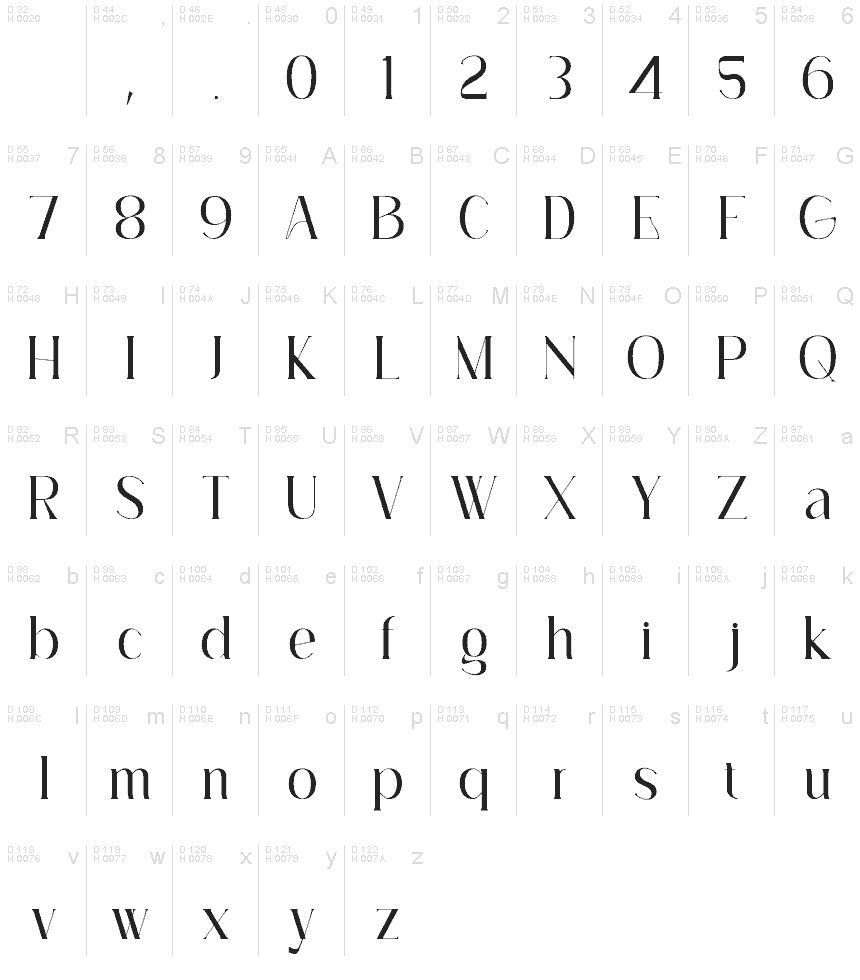
Malden Regular
Malden font by Muksal Creative is a sans serif condensed font, yet it carries all the qualities of an elegant serif. This youthful elegance is achieved through clever design choices that the human eye unconsciously deciphers to form the final magic effect. The letters are consistent in their look, width, and tilt which entails smooth reading and fun use.
This free font shows great potential for online projects like website titles, digital ads, mobile apps, and online magazines. It also proves to be equally useful for printed branding elements where names of brands can be highlighted on banners, flyers, business cards, postcards etc. Use Malden whenever classic looks top your priorities’ list!